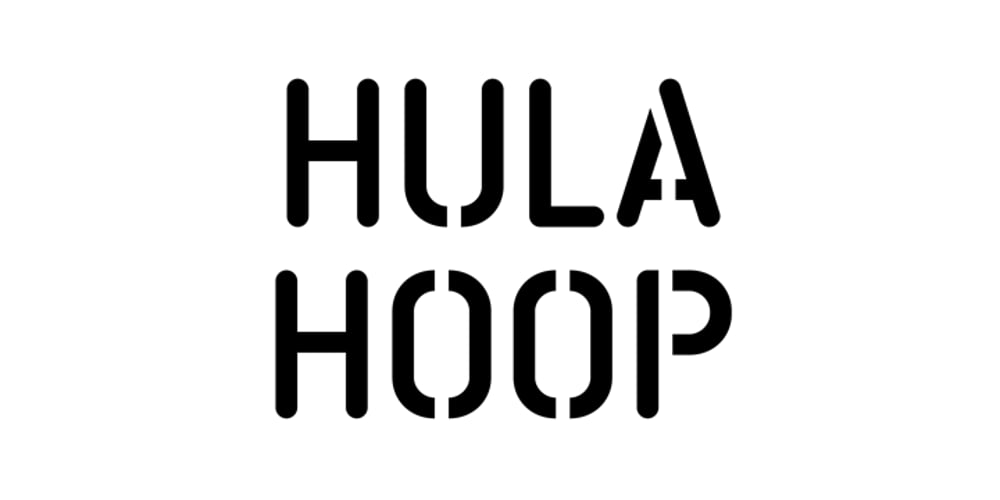
Stencil Allround Font Family was designed by Dominique Boessner and published by Letterwerk. Stencil Allround contains 1 styles and family package options. Stencil Allround is a rounded capital letter font made for display use.